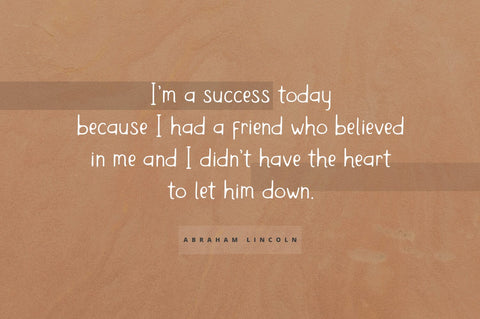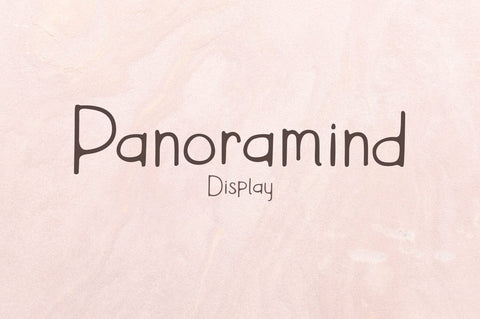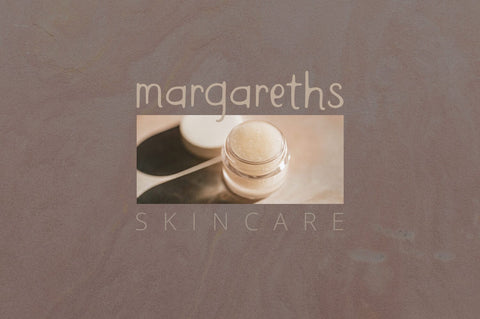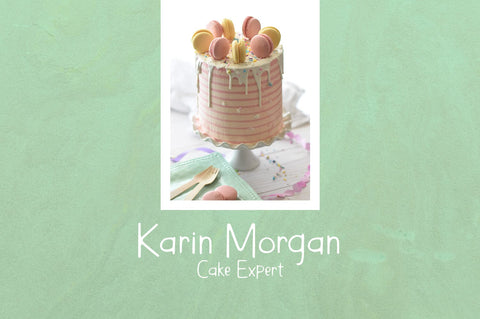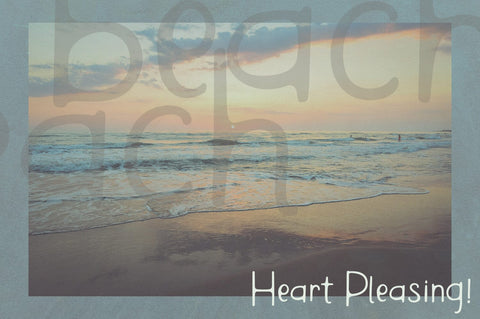
Panoramind Display Font
Panoramind a new display font with a style natural, sweet and simple. Made with great care to provide the natural and modern elements. The great thing about this font is you can find some style when you use it, examples such as natural handwriting style, unique, simple, elegant, and luxury. Very suitable to meet your various design needs that are trending now.